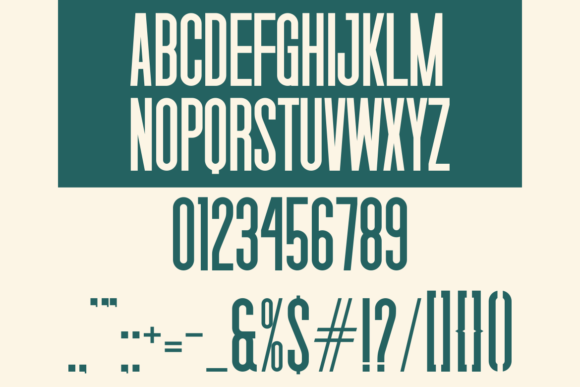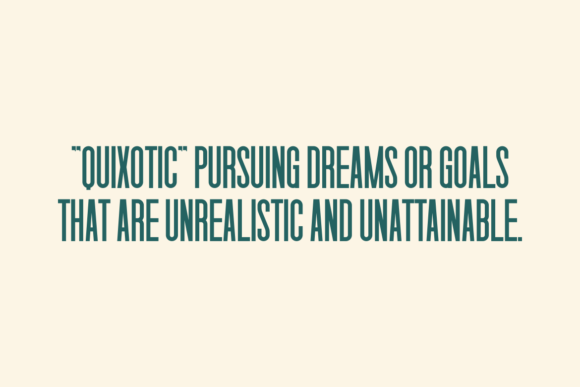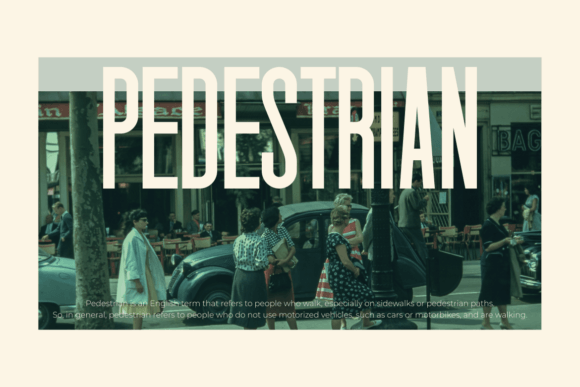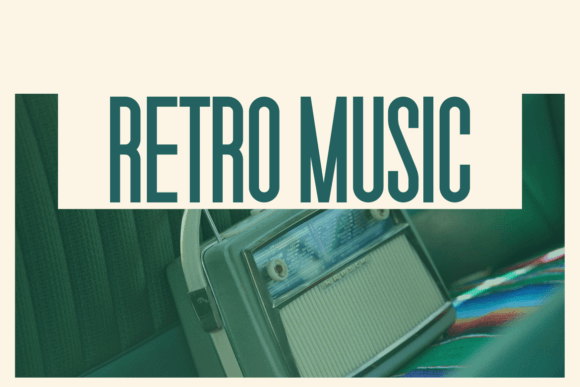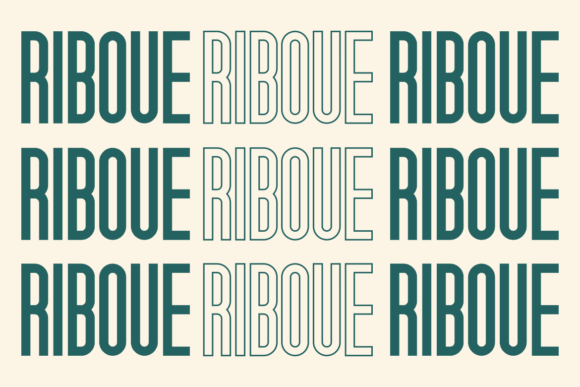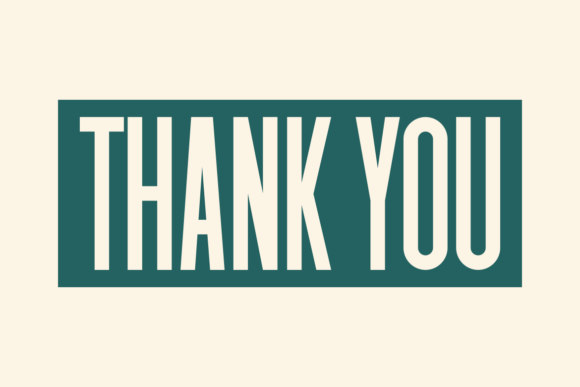
Introduction to Riboue Font
Riboue is a sleek sans-serif font that epitomizes modern minimalism with a touch of refinement.
Its clean lines and well-balanced letterforms create a sophisticated and versatile aesthetic Ideal for projects demanding clarity and contemporary elegance, Riboue adds a sleek, polished look to your designs.
Key Features of Riboue Font